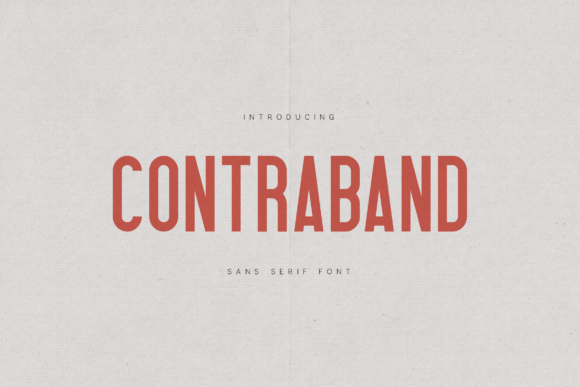
Introduction to Contraband Font
Contraband is a bold, condensed sans-serif font designed for strong, modern typography.
With tall proportions, clean geometry, and confident letterforms, it delivers clarity and impact across headlines, posters, branding, and editorial layouts The Contraband font strikes a perfect balance between industrial grit and contemporary clean lines, making it an essential tool for designers who want to convey confidence and reliability in their work.
Key Features of Contraband Font